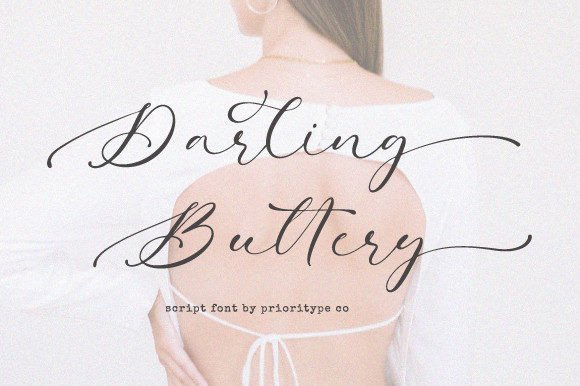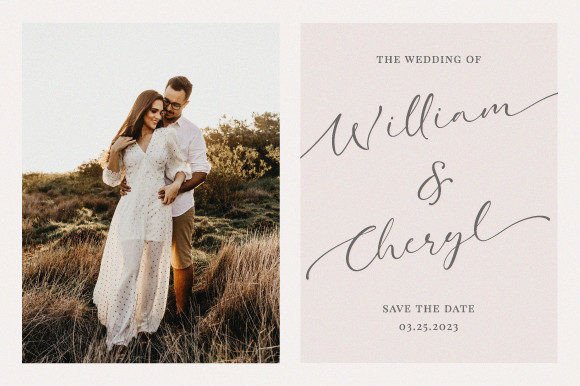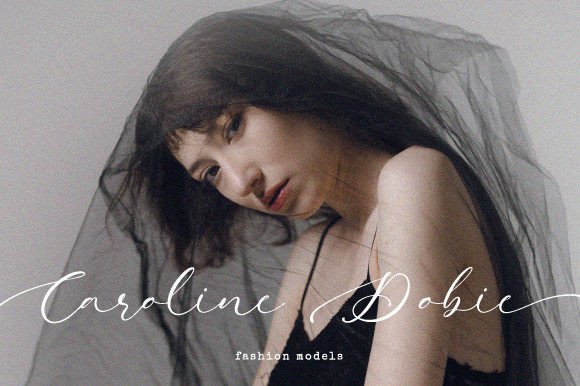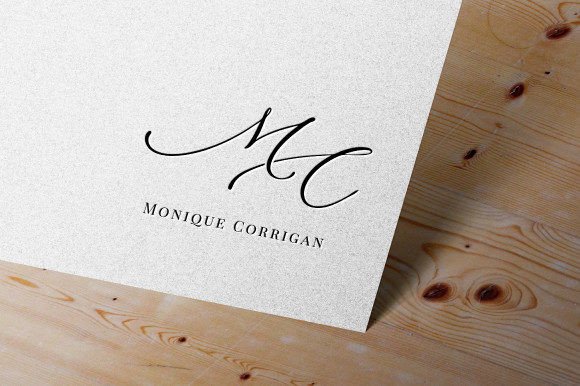
Darling Buttery Font: Elegant Script for Wedding Invitations & Branding
About the Darling Buttery Font
Discover the charm of Darling Buttery Font. This font is a perfect blend of modern aesthetics and classic appeal. Darling Buttery – Modern Script Font.
Beautiful and modern script font ready to use in your design projects. Suitable for use in wedding invitation designs, logos, quotes, branding, and many more.
Darling Buttery’s elegant, yet slightly playful, personality makes it ideal for branding projects requiring a touch of sophistication and warmth, particularly logos, short headlines, and invitations. It also works well on packaging for luxury or artisanal products. However, its script nature makes it less suitable for body text or UI elements where readability is paramount; long passages set in Darling Buttery would be difficult to read.
To complement its modern script style, consider pairing it with a clean sans-serif like Lato for body copy or a geometric sans-serif such as Futura for a more contemporary feel. For a touch of contrast, a classic serif like Garamond could provide a sophisticated counterpoint. Avoid pairing it with other script fonts, which would create visual clutter.
Darling Buttery projects an overall image of refined modernity with a gentle, approachable touch. It’s best suited for brands aiming for a sophisticated, yet friendly image, in sectors such as fashion, beauty, or high-end food & beverage.
Darling Buttery Font Usage Examples
Darling Buttery Font Example